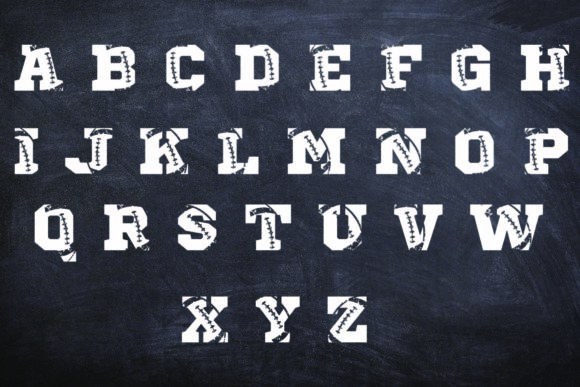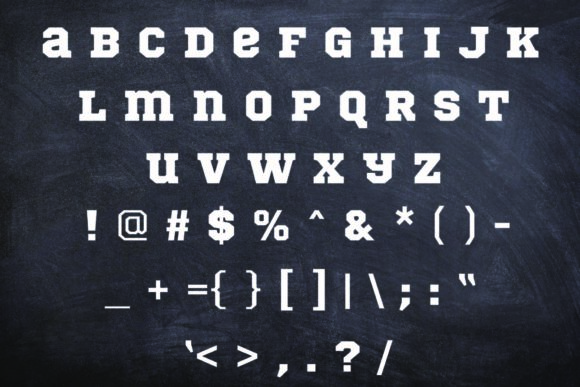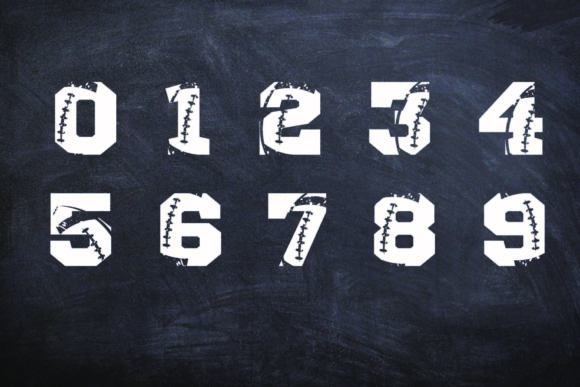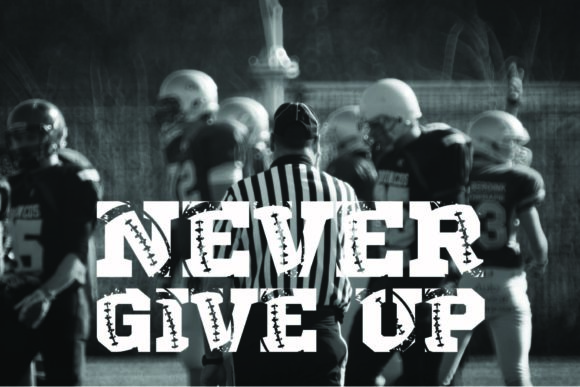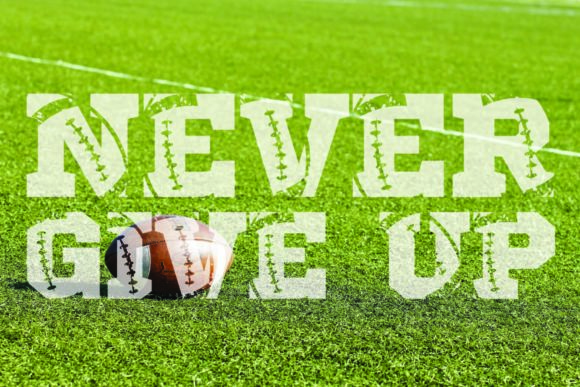
Football Lace Font: The Ultimate Must-Have for Football Enthusiasts and Designers
Are you a football fanatic looking for a unique way to showcase your team spirit? Or perhaps a designer seeking a bold and eye-catching font for your next project? Look no further than the Football Lace Font! This amazing display font is a must-have for all football lovers and designers alike, offering a creative and stylish way to add a touch of football flair to any design.
What is Football Lace Font?
Football Lace Font is a specially designed display font that captures the essence of football in a stylish and elegant way. The font features intricate lace-like patterns inspired by football, making it perfect for a wide range of design projects, from sports-themed posters and flyers to team logos and branding materials.
Why is Football Lace Font a Must-Have?
So, why is Football Lace Font a must-have for football enthusiasts and designers? Here are just a few reasons:
- Unique and Eye-Catching: Football Lace Font is unlike any other font on the market. Its intricate lace-like patterns and bold design make it stand out from the crowd, adding a touch of sophistication and style to any design.
- Versatile: Whether you’re designing a poster, flyer, or social media graphic, Football Lace Font is the perfect choice. Its versatility makes it suitable for a wide range of design projects, from sports-themed designs to more creative and artistic endeavors.
- Customizable: With Football Lace Font, you can customize your design to fit your team’s colors, logo, and branding. This makes it perfect for sports teams, leagues, and organizations looking for a unique and cohesive visual identity.
Tips and Tricks for Designers
Here are some tips and tricks for designers looking to get the most out of Football Lace Font:
- Experiment with Colors: Try out different color schemes to match your team’s branding or to create a unique and eye-catching design.
- Play with Texture: Add texture to your design by incorporating images or patterns that complement the lace-like patterns of the font.
- Mix and Match: Combine Football Lace Font with other fonts to create a unique and visually appealing design.
| Font Name | Football Lace Font |
| Author | KtwoP |
Get Creative with Football Lace Font!
Whether you’re a designer, crafter, or football enthusiast, Football Lace Font is the perfect way to showcase your team spirit and add a touch of style to your designs. So get creative, experiment with different designs, and show off your football pride with Football Lace Font!